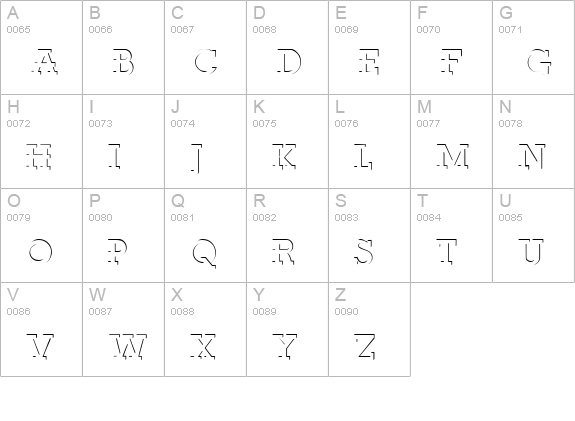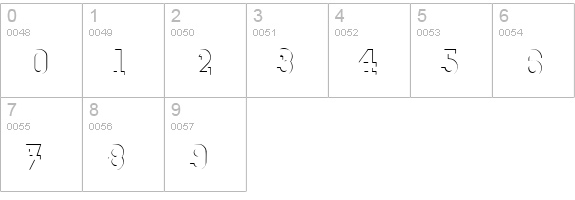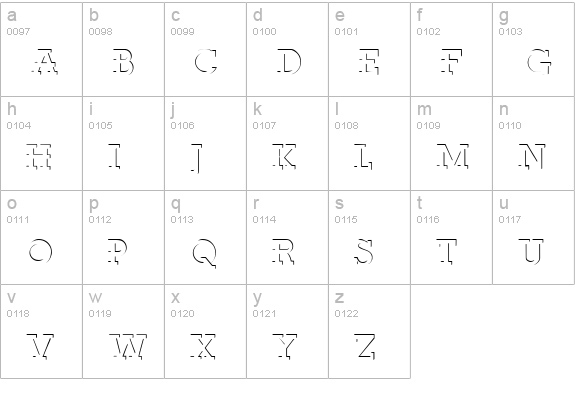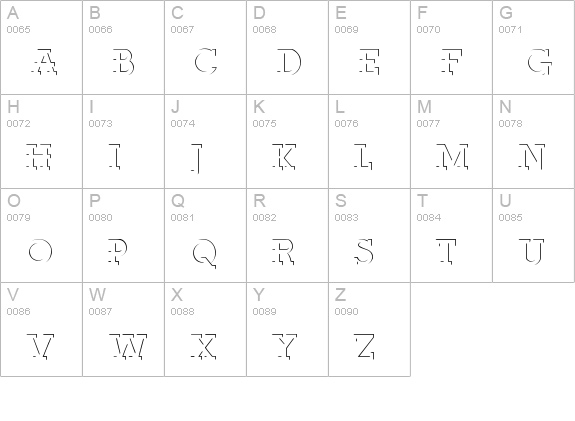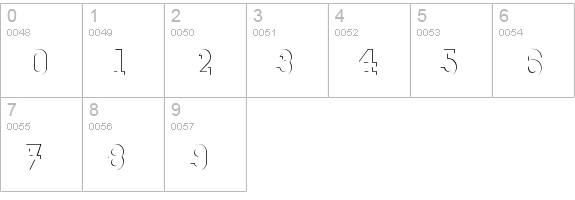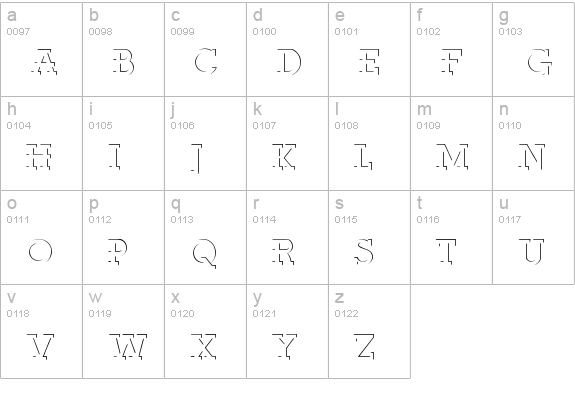
ReliefDeco Regular Font Details
ReliefDeco Regular is the standard, neutral variant in the ReliefDeco typeface family \xE2\x80\x94 well suited to general body text, paragraphs, and standard typographic work.
ReliefDeco Regular font is a stunning display typeface that embodies an elegant and classic aesthetic. Its timeless design is perfect for adding a touch of sophistication to a variety of creative projects. With its clean lines and balanced proportions, ReliefDeco Regular exudes a sense of refinement and grace. This font is versatile and can be used for a range of purposes, from headlines to logos, posters to packaging. Its bold yet graceful letterforms make a strong statement, while still maintaining an air of elegance. One of the most remarkable aspects of ReliefDeco Regular font is that it is freely available to download at FontsMarket.com. This means that you can enhance your design projects with this beautiful font without any additional cost. Its availability for free download makes it an excellent choice for designers, students, and anyone seeking to elevate their creative endeavors. Whether you are working on a branding project, creating eye-catching advertisements, or designing a stunning invitation, ReliefDeco Regular font will undoubtedly captivate your audience. Its refined and sophisticated appearance will add a touch of luxury to any design. Don't miss the opportunity to download ReliefDeco Regular font for free at FontsMarket.com. Elevate your designs with this exquisite typeface and let it become an integral part of your creative toolkit.